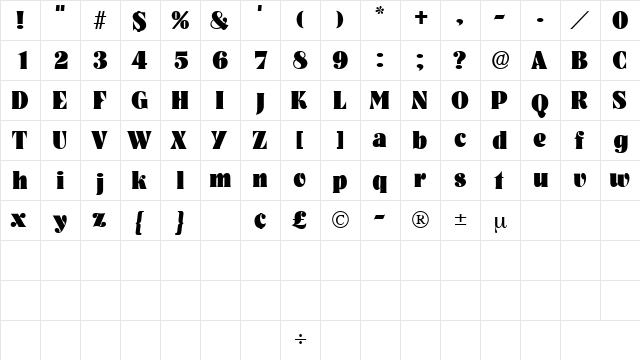
GlenysDisplaySSK Regular
Design Context for GlenysDisplaySSK Typeface
GlenysDisplaySSK is built around its visual character rather than neutral utility — its distinctive forms are designed to make an impression at display sizes.
Font Pairing: Pair with a clean neutral sans-serif for body copy to let GlenysDisplaySSK's character lead without overwhelming the composition.
Pro Tip: Treat GlenysDisplaySSK as the centrepiece of your typographic hierarchy. One strong heading set in a decorative face can carry an entire layout.